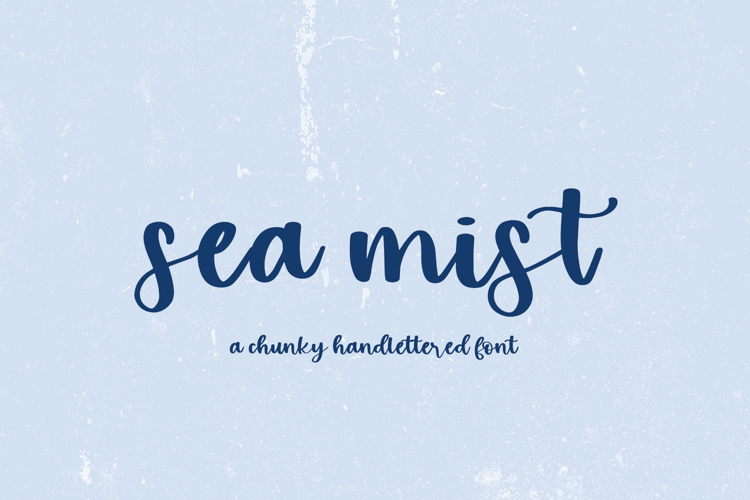
Sea Mist is best for:
- feminine, crafty projects with your Cricut or Silhouette machine, or your SVG design business
- farmhouse decor and crafts
- website design + website accents, blog design
- feminine graphic tee shirt design & other apparel
- 12 alternate characters
- 4 ligatures - co, it, po, tt